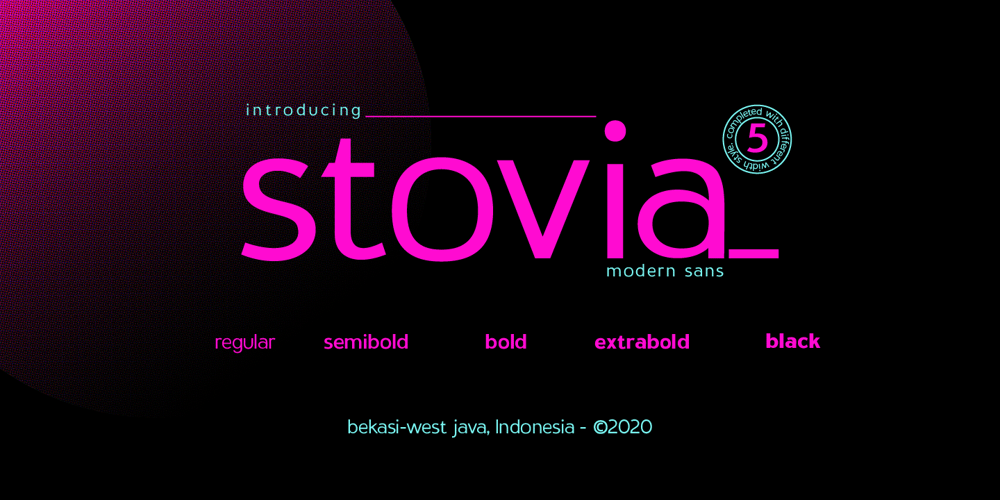
Stovia Font Family was designed by Andi Winarno and published by inkstypia. Stovia contains 11 styles and family package options. Stovia is a typeface with a modern sans serif style, has a clean, modern and elegant character. Suitable for text fonts, headings, logotypes, or even as display fonts. Come with 5 different weight from Regular to Black, completed with outline/stroke style.